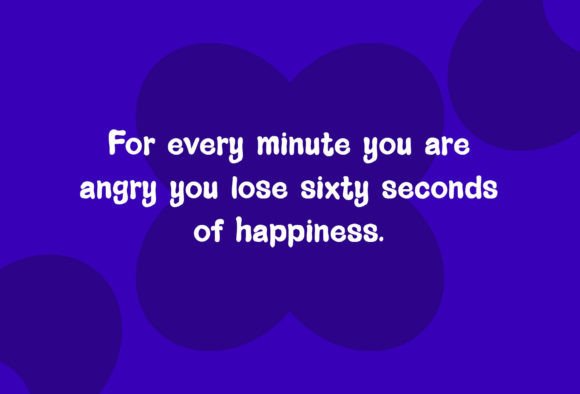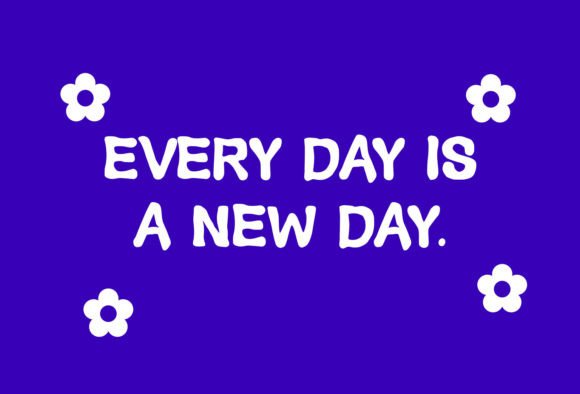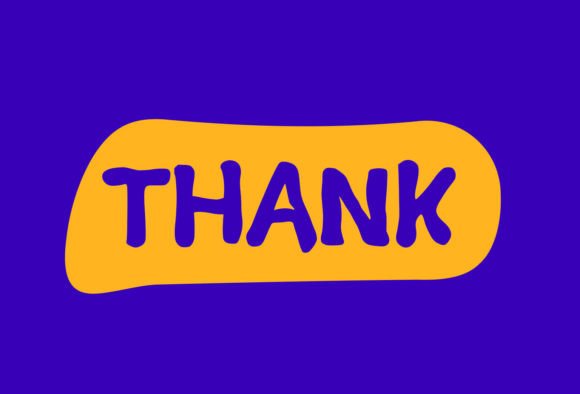
Introduction to Kolnest Valmola Font
Have you ever stared at a blank canvas, trying to conjure up the perfect design, only to be held back by a lack of inspiration? We’ve all been there. But what if I told you that the key to unlocking your creative potential lies in the subtle nuances of a single font? Enter the enchanting Kolnest Valmola Font, a sweet and friendly handwritten font that’s about to revolutionize the way you approach your next design project.
With its natural and unique style, the Kolnest Valmola Font is the perfect design resource for creatives looking to add a touch of personality to their work. Whether you’re working on a free download project or a high-quality commercial design, this versatile font is sure to elevate your creative project to new heights.
Key Features of Kolnest Valmola Font
- High-quality design resource with a transparent background, ideal for creative projects
- Supports a wide range of languages, ensuring global compatibility
- Unique characteristics include its modern and sleek design, perfect for modern creative projects
Honest Review: Kolnest Valmola Font
As a designer, I’m always on the lookout for high-quality design resources that can elevate my creative projects. The Kolnest Valmola Font caught my attention, and I decided to give it a try.
Here’s what works well: ✨ The font has a unique, modern design that’s perfect for creative projects. It’s also available for free download, which is a huge bonus. The transparent background makes it easy to layer over images or other design elements.
Here are some features that I appreciate:
- Unique, modern design
- High-quality vector files
As with any font, there are some limitations: ⚠️ The font is only available in a limited range of weights, which may not be ideal for projects that require a lot of font variation. Additionally, the font may not be suitable for use in small text sizes, as it can become difficult to read.
Overall, I’m impressed with the Kolnest Valmola Font, and I would definitely recommend it to designers who are looking for a unique, modern font for their creative projects.
Getting the Most Out of Kolnest Valmola Font
To get the most out of the Kolnest Valmola Font, use it on a transparent background to create a seamless design. Experiment with different font sizes, colors, and combinations to find the perfect look for your creative project.
The Kolnest Valmola Font is ideal for various design projects, including business cards, brochures, posters, and digital presentations. Its high-quality design and transparent background make it perfect for creating visually appealing and professional-looking materials.